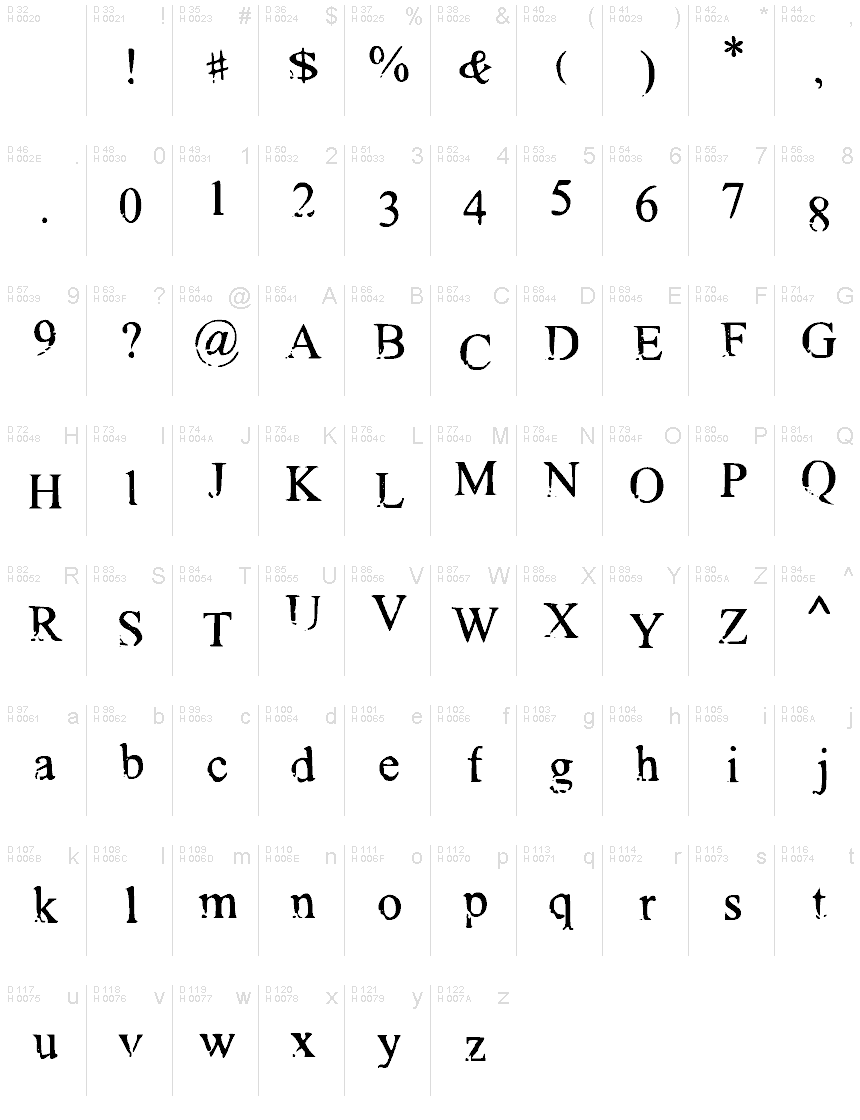
Bloody Pelederation 2 Regular
Bloody Pelederation 2 font by Jack W. G WBK is an antique, gothic influences display font with a distressed finish and vintage feel. It is perfect for creating a dramatic impact neccessary in projects dealing with historical significance such as those concerning museums, or other educational institutions.
Use this eroded free display font when designing advertisements, magazines, signage, branding material products packaging (beverages and cosmetics) or even when developing online platforms. Bloody Pelederation 2 also works for books and movies title design.